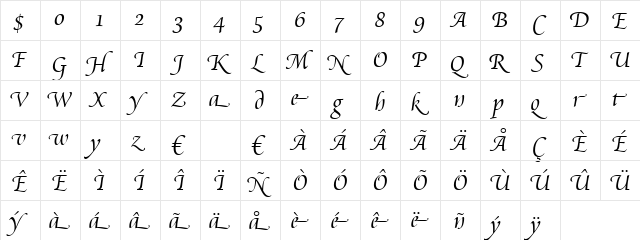
Cataneo LtSwash BT Light Swash Font Preview
Design Context for Cataneo LtSwash BT Typeface
Cataneo LtSwash BT brings a calligraphic fluidity to the page — its connecting strokes and expressive curves give it an unmistakably human quality. The delicate stroke weight brings airiness and refinement to layouts.
Font Pairing: Combine Cataneo LtSwash BT with a simple geometric sans for maximum contrast — the tension between flowing curves and clean structure is a classic typographic pairing.
Pro Tip: Pair Cataneo LtSwash BT with a clean sans-serif for supporting text. The contrast between fluid script and geometric structure creates an elegant typographic hierarchy.